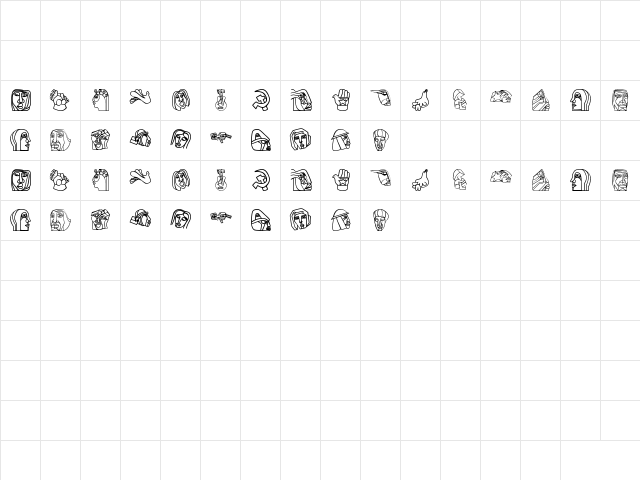
BRIGADA RAMONA PARRA Regular
Design Context for BRIGADA RAMONA PARRA Typeface
BRIGADA RAMONA PARRA is a composed and adaptable typeface that performs quietly and consistently across a wide range of design contexts.